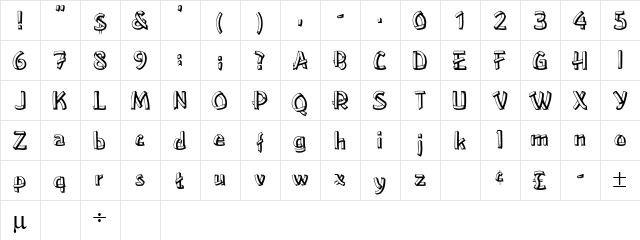
WINONA Regular
Design Context for WINONA Typeface
WINONA is a composed and adaptable typeface that performs quietly and consistently across a wide range of design contexts.